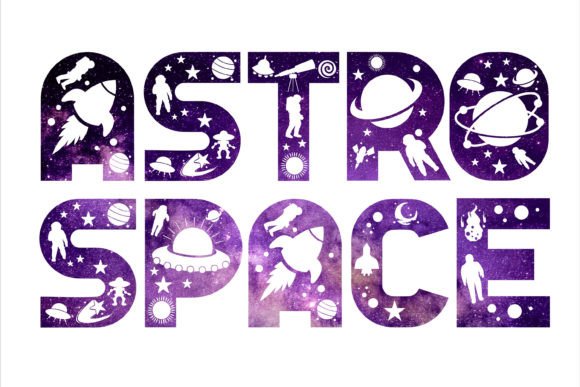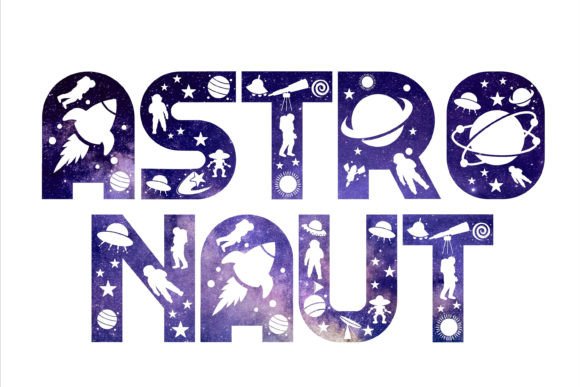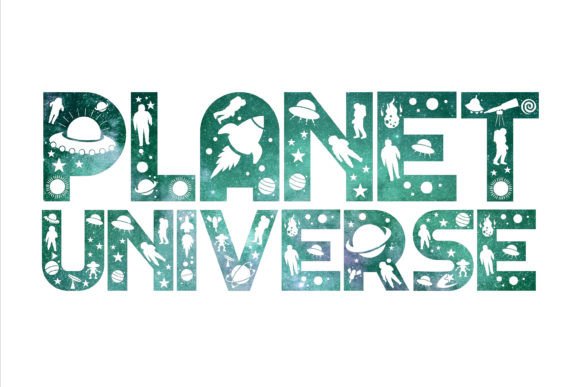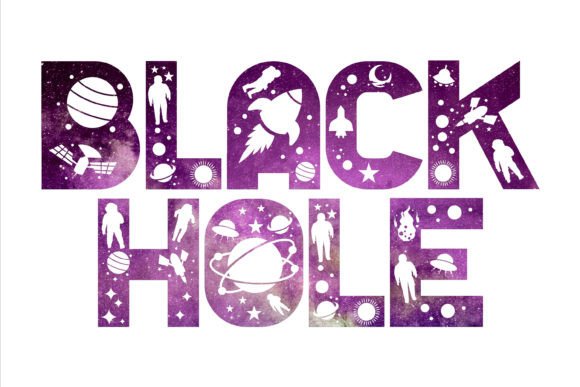
Astro Space Font
About the Astro Space Font
Presenting Astro Space Font, a unique and stylish typeface that will make your work stand out. Astro Space is a font with an outer space theme, a font with ornaments about depicting objects in the universe, this font is perfect for natural science designs. You can see all the objects from the galaxy and solar system, because the ornament is in the font.
Astro Space’s bold, cosmic aesthetic makes it ideal for headlines, posters, and branding projects related to space exploration, science fiction, or astronomy. It’s also effective for packaging designs targeting a niche audience interested in these themes. However, its highly decorative nature makes it unsuitable for body text or user interfaces, where legibility is paramount.
For a balanced design, pair Astro Space with a clean sans-serif like Open Sans for body copy or a geometric sans-serif like Futura for a more modern feel. If a more playful design is desired, a rounded sans-serif such as Gill Sans might complement its bold character. Avoid pairing it with overly ornate or script fonts, which could create visual clutter.
The overall personality of Astro Space is bold and adventurous, reflecting a sense of wonder and exploration. Its strong visual presence is best utilized in projects seeking to convey a sense of awe and scientific discovery.
Astro Space Font Usage Examples
Astro Space Font Example